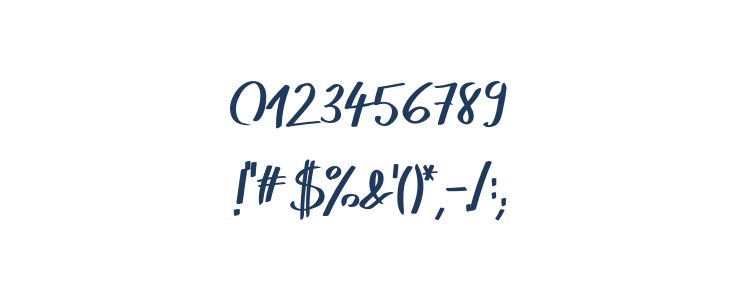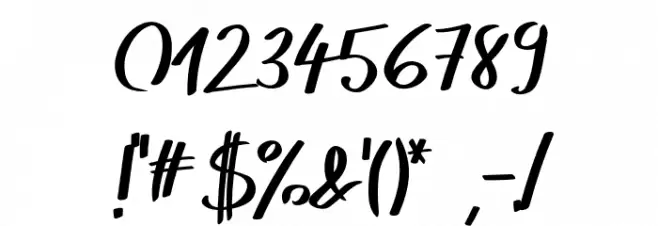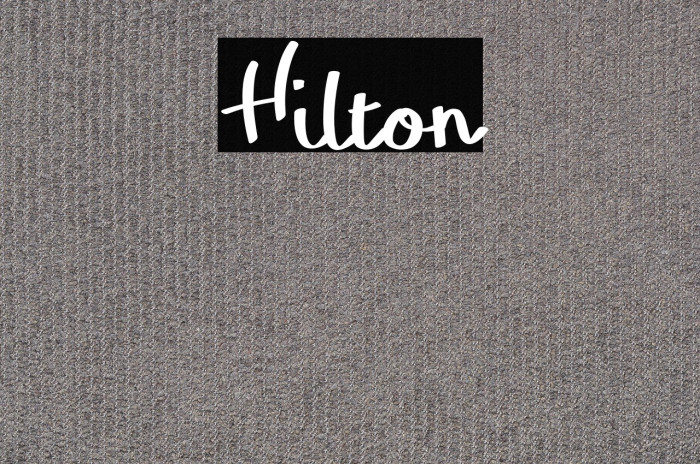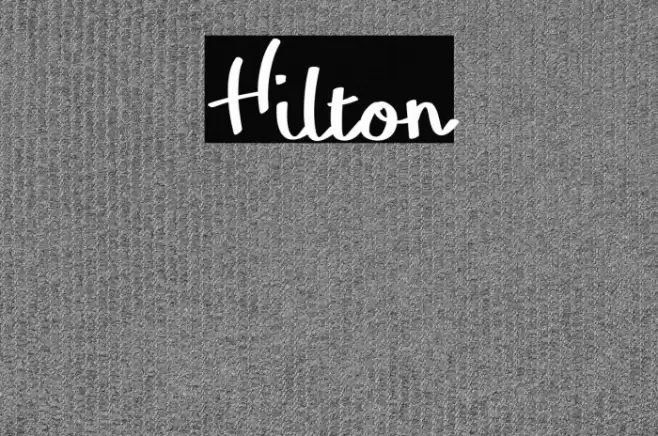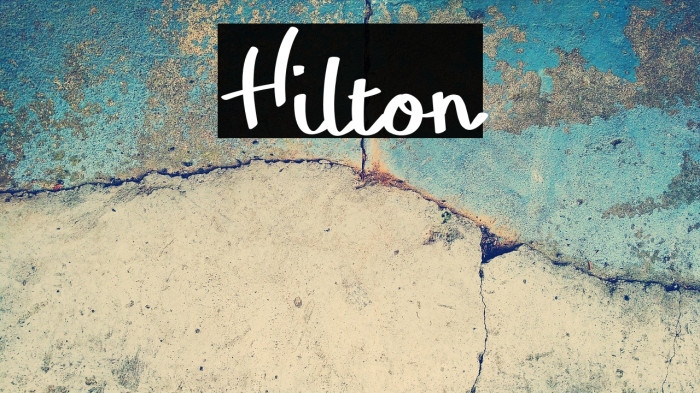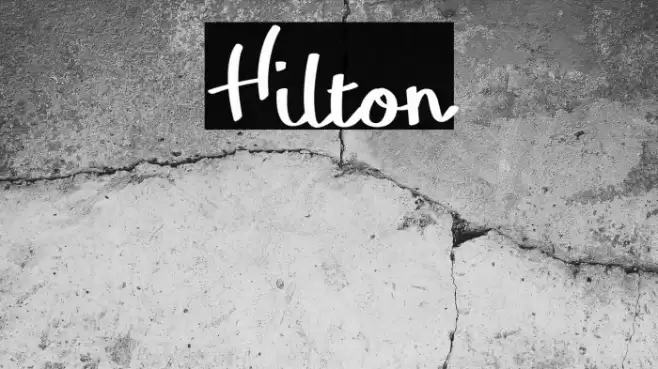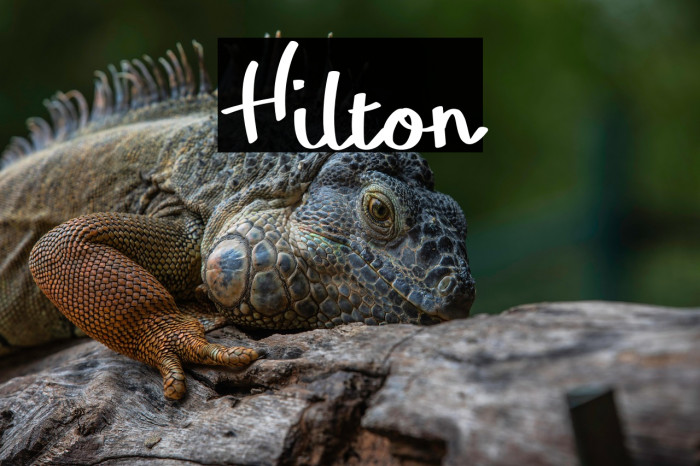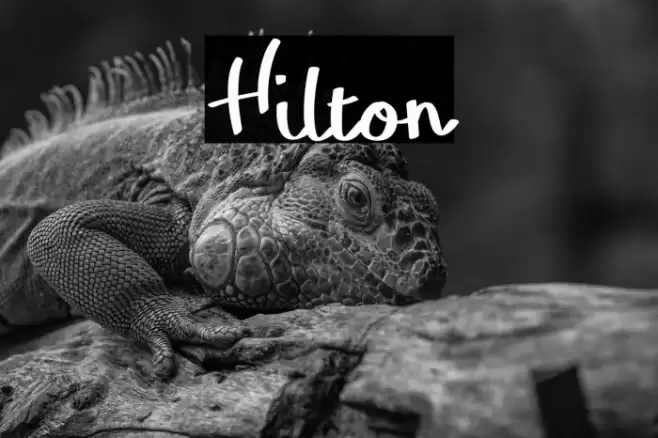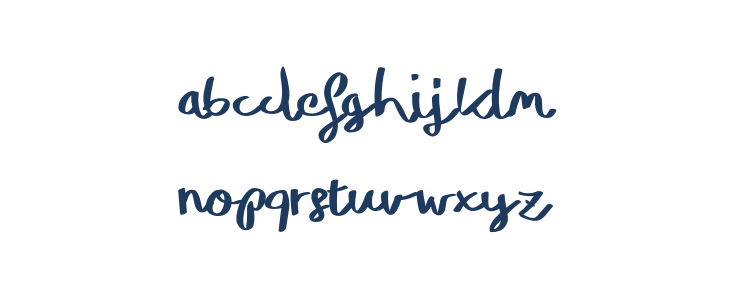
Hilton Font
Hilton Description
This font features a lively and dynamic handwritten style, characterized by its fluid and expressive strokes. The letters are slightly slanted, giving it a casual yet elegant appearance. The uppercase letters are bold and prominent, while the lowercase letters maintain a consistent flow, enhancing readability. Numbers and special characters are crafted with the same attention to detail, ensuring a cohesive look across all elements. The font's playful nature makes it suitable for creative projects that require a personal touch.
| Overall Style | Casual, Elegant |
| Proposed Projects | Ideal for greeting cards, invitations, personal branding, and creative social media graphics. |